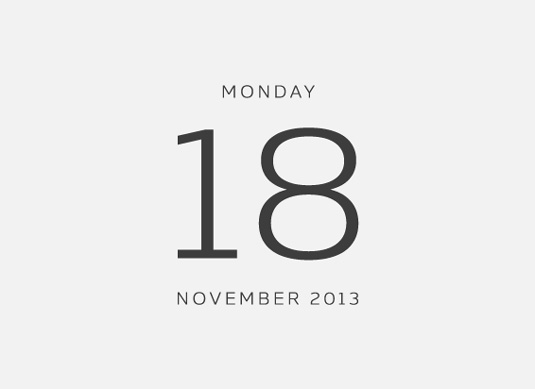
Font of the day: Nauman
Every day we showcase the best fonts on the web. Today it's Nauman from The Northern Block, which is totally free to download.
Nauman from The Northern Block
Available from type foundry The Northern Block, Nauman is described as "a modern humanist sans serif made for the screen. Broad open letter forms are combined with precise geometry to create a functional and legible font that's ideally suited to the web and on-screen applications."